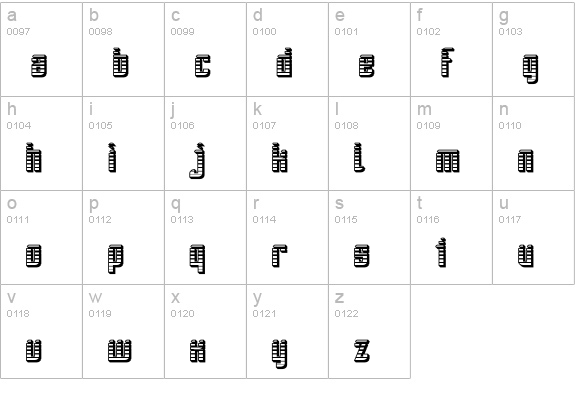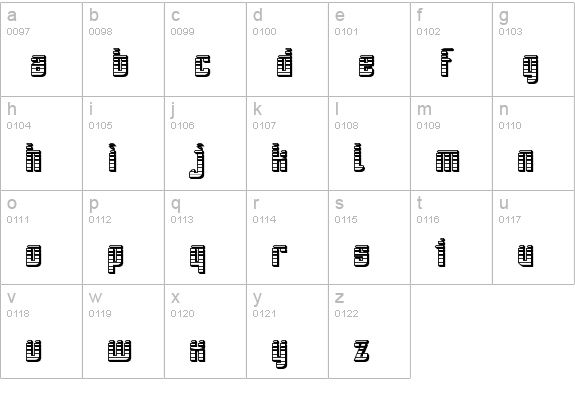
SF Piezolectric SFX Font Details
Introducing the remarkable SF Piezolectric SFX font, a captivating typeface that will electrify your designs. This font is the perfect fusion of futuristic vibes and cutting-edge aesthetics, making it an ideal choice for those seeking a modern and innovative look. The SF Piezolectric SFX font showcases a stunning display of piezoelectric effects, with each character exuding a mesmerizing energy that is sure to captivate viewers. Its sharp edges and dynamic contours create a sense of movement and excitement, adding an extra dimension to your typography. This font is not only visually striking but also highly versatile. Whether you're designing a sci-fi movie poster, a tech-themed website, or an eye-catching logo, SF Piezolectric SFX has got you covered. Its unique style and attention-grabbing details will make your designs stand out from the crowd. What's more, SF Piezolectric SFX is freely available to download at FontsMarket.com. This means that you can bring this extraordinary font into your creative projects without any cost, making it an excellent choice for designers on a budget. You can now access this font with ease and incorporate its dynamic energy into your designs effortlessly. So why wait? Unleash the power of SF Piezolectric SFX and elevate your designs to new heights. Download this font today and let your creativity soar like never before.